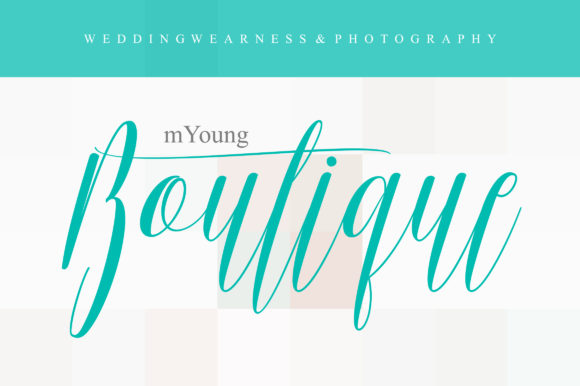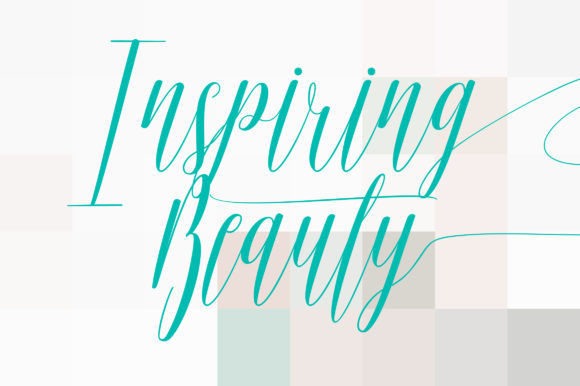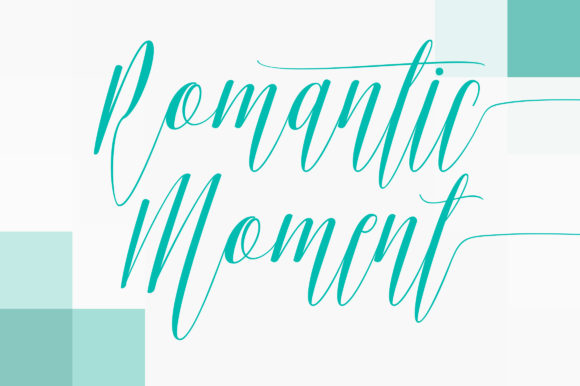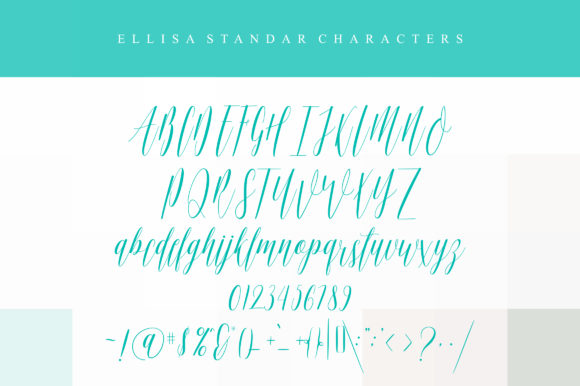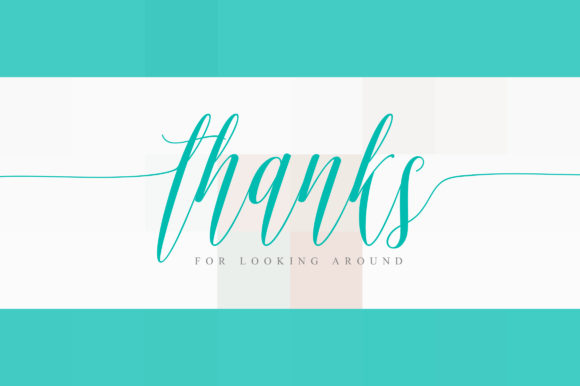
Discover the Elegance of Ellisa Script Font: Elevate Your Design Projects
Are you on the hunt for a font that can add a touch of elegance and whimsy to your design projects? Look no further than the Ellisa Script Font. This beautifully crafted font is designed to effortlessly turn any design project into a standout, and it’s easy to see why it’s captured the hearts of designers and crafters alike.
The Unique Charm of Ellisa Script
Ellisa Script is a wonderfully light and charming font that boasts a unique charm that’s hard to resist. Its delicate and airy feel makes it perfect for a wide range of design applications, from romantic wedding invitations and stylish branding materials to engaging social media graphics and captivating blog posts.
Key Features of Ellisa Script Font
- Light and Airy Feel: Ellisa Script’s delicate design makes it perfect for creating visually appealing designs that exude elegance and sophistication.
- Unique Charm: The font’s distinctive character ensures that your designs will stand out from the crowd and leave a lasting impression on your audience.
- Versatile: Whether you’re working on a wedding invitation, a brand identity project, or a social media graphic, Ellisa Script is the perfect choice.
- Easy to Read: Despite its elegant and cursive nature, Ellisa Script remains highly legible, making it suitable for both headings and body text.
Ellisa Script Font is a dream come true for designers and crafters looking to add a touch of personality to their projects. Whether you’re a seasoned professional or just starting out, this font is sure to inspire your creativity and help you create designs that truly shine.
Use Cases for Ellisa Script Font
The versatility of Ellisa Script Font makes it suitable for a wide range of design applications, including:
- Wedding Invitations: Add a touch of romance and elegance to your wedding invitations and stationery.
- Branding Materials: Create a lasting impression with stylish and sophisticated branding materials, such as logos, business cards, and brochures.
- Social Media Graphics: Elevate your social media presence with engaging and eye-catching graphics that showcase your brand’s personality.
- Blog Posts: Add a touch of whimsy and charm to your blog posts and make them more engaging and shareable.
Tips for Using Ellisa Script Font
To get the most out of Ellisa Script Font, here are a few tips to keep in mind:
- Pair with a Sans-Serif Font: Pair Ellisa Script with a clean sans-serif font to create a beautiful contrast and add visual interest to your designs.
- Experiment with Colors: Don’t be afraid to experiment with different colors and textures to add depth and personality to your designs.
- Use for Headings and Titles: Ellisa Script Font is perfect for headings and titles, so don’t be afraid to use it to add a touch of elegance and sophistication to your designs.
| Font Name | Ellisa Script Font |
| Author | BONJOURTYPE |
In conclusion, Ellisa Script Font is a beautifully crafted font that is sure to elevate your design projects and add a touch of elegance and whimsy. Its unique charm, light and airy feel, and versatility make it perfect for a wide range of design applications. So why wait? Fall in love with Ellisa Script Font and take your designs to the next level!